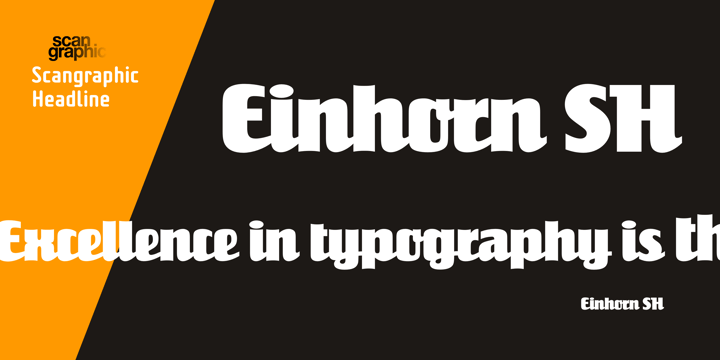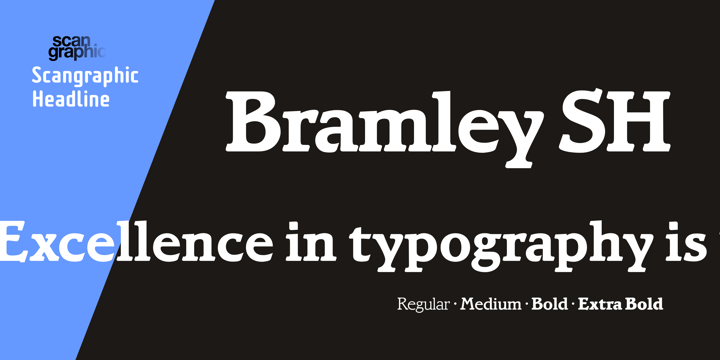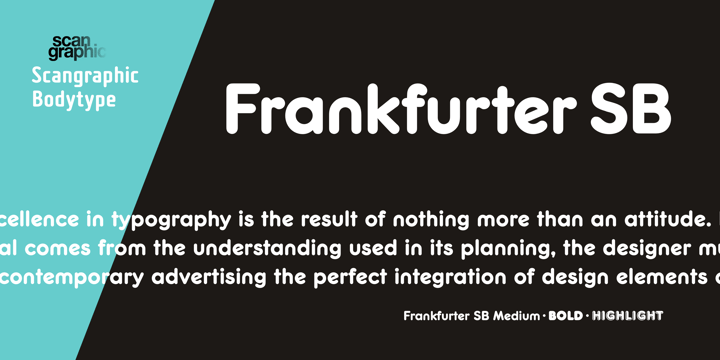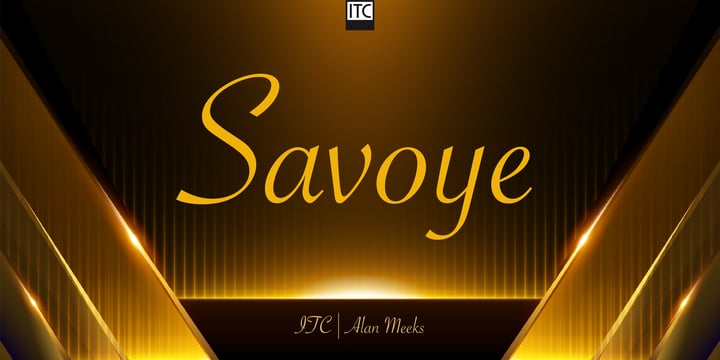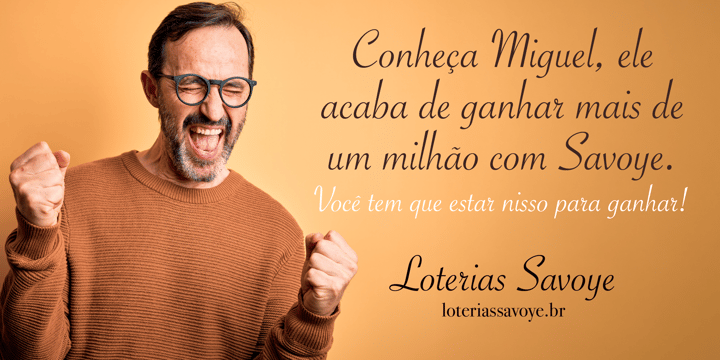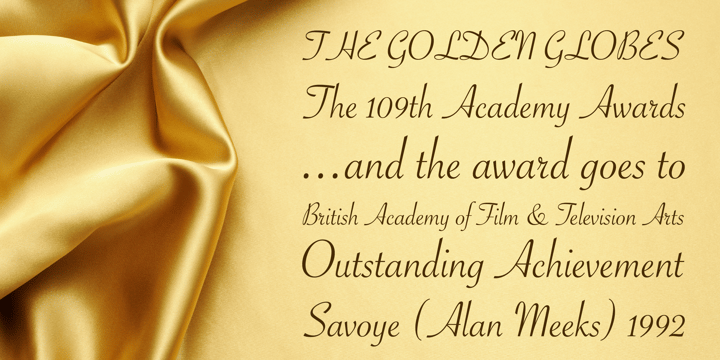
Alan Meeks
Alan started work in 1970 for Graphic Systems as a lettering artist straight from school.
He joined Letraset in 1975 as Senior Type Designer and Studio Manager where he designed over 40 Typefaces whilst being in charge of all the artwork output of Letraset with a studio of ten artists and designers and an army of freelancers around the world.
During this period Alan and the Type Director turned Letraset into one of the most important typefoundries in the world. All the typographic artwork produced at Letraset was done by stencil cutting; all the fonts in those days were hand cut in Rubylith and most of the original artwork has been archived by St. Brides Printing Library. Alan was responsible for all the training in this technique. In 1980 Letraset started experimenting in computer aided design and digital artwork, years ahead of companies such as Adobe and Macromedia.
In 1984 Alan left Letraset to go freelance specifically to broaden his work beyond typefaces to more general type.
He has specialized in three main areas:
1. Corporate Identity. Design development of logos, symbols, typography and type design
2. Packaging. Specialist lettering and artwork for packaging and point of sale projects
3. Type Design Submitted and Commissioned Work for Letraset and ITC New York.
In 2008 he launched the alanmeeks.com website to promote and sell his text faces.
Alan has also produced specialist Artwork such as:
• the design on the sides of the boat and sails of the Il Moro de Venizia (Italy's entry for the America's Cup)
• The Artwork to the entrance to London Zoo
• Princess Diana's signature for the Diana Trust
• The Champions League Ball Logo
• The London Pavillion lettering cut by a stonemason on top of the Trocadero in Piccadilly
• Typeface Design for the road signs and direction signs on Canary Wharf
Alan has lectured in Britain and abroad and written articles on type design and typography and received 3 'CLIO' awards for lettering.
Alan now lives in Buckinghamshire with his wife and three children.